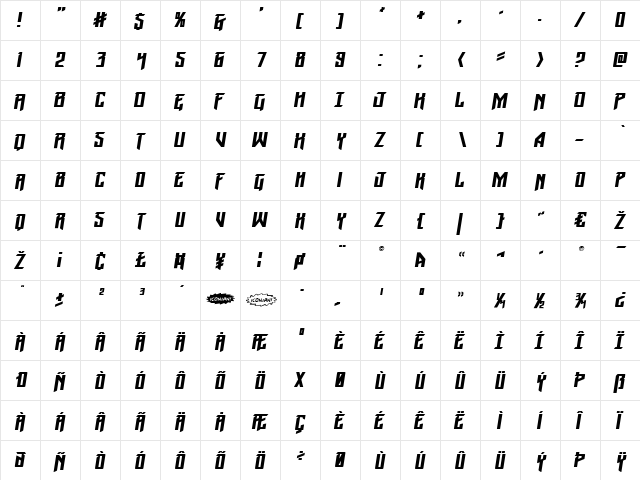
Winter Solstice Expanded Italic Expanded Italic
Design Context for Winter Solstice Expanded Italic Typeface
Winter Solstice Expanded Italic is a composed and adaptable typeface that performs quietly and consistently across a wide range of design contexts. The slanted form adds forward momentum and visual energy.
Pro Tip: Try Winter Solstice Expanded Italic for annotation and caption copy alongside an upright companion — the contrast in angle creates a dynamic but ordered typographic system.